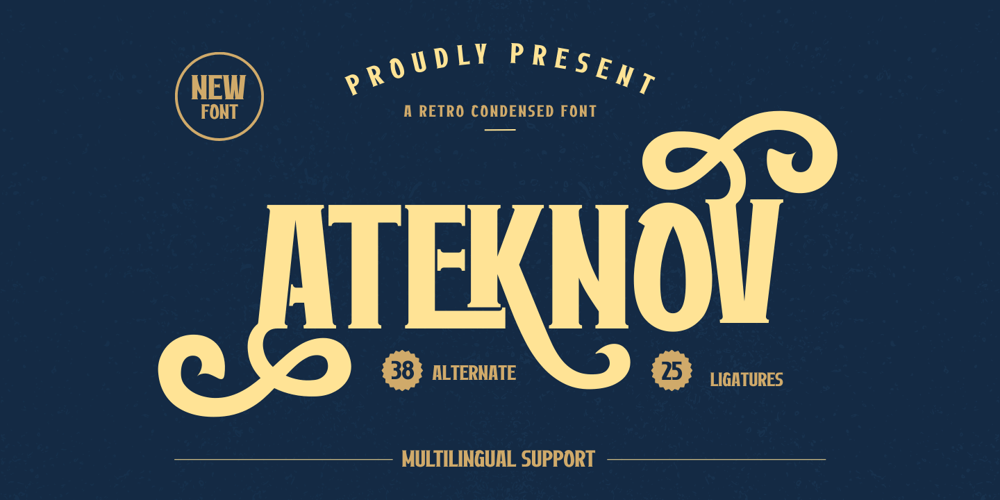
Ateknov Font Family was designed by Rozikan and published by Twinletter. Ateknov contains 1 styles and family package options. Introducing Ateknov, a retro condensed font that embodies classic elegance. This font is perfect for designers looking for a touch of nostalgia in their work. Ateknov features a clean and polished design with sharp edges and a condensed appearance that makes it a great choice for headlines, logos, and branding.Ateknov comes equipped with alternate characters and ligatures, each with a unique and beautiful design that adds depth and character to your projects. The font also supports multilingual characters, making it accessible to a global audience.Whether you’re creating a vintage-inspired design or a modern twist on a classic aesthetic, Ateknov is a versatile font that will elevate your work to the next level. Download it today and start exploring the possibilities.What’s Included :- File font- All glyphs Iso Latin 1- Alternate, Ligature- Simple installations- We highly recommend using a program that supports OpenType features and Glyphs panels like many Adobe apps and Corel Draw so that you can see and access all Glyph variations.- PUA Encoded Characters – Fully accessible without additional design software.- Fonts include Multilingual support